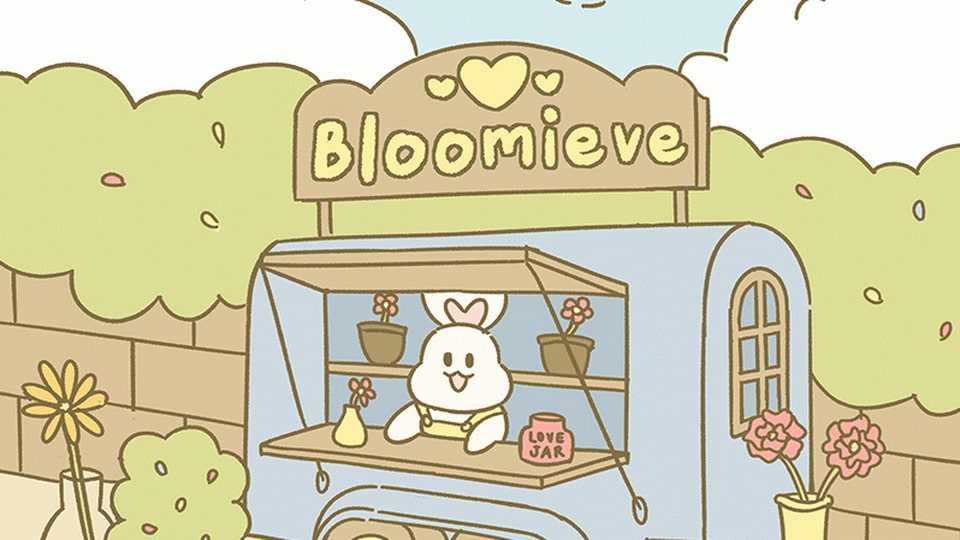
Download Bloomieve font, a cute and playful handwritten typeface that adds a touch of charm to your creative projects. With its slight texture and endearing imperfections, Bloomieve font captures the essence of handcrafted whimsy.